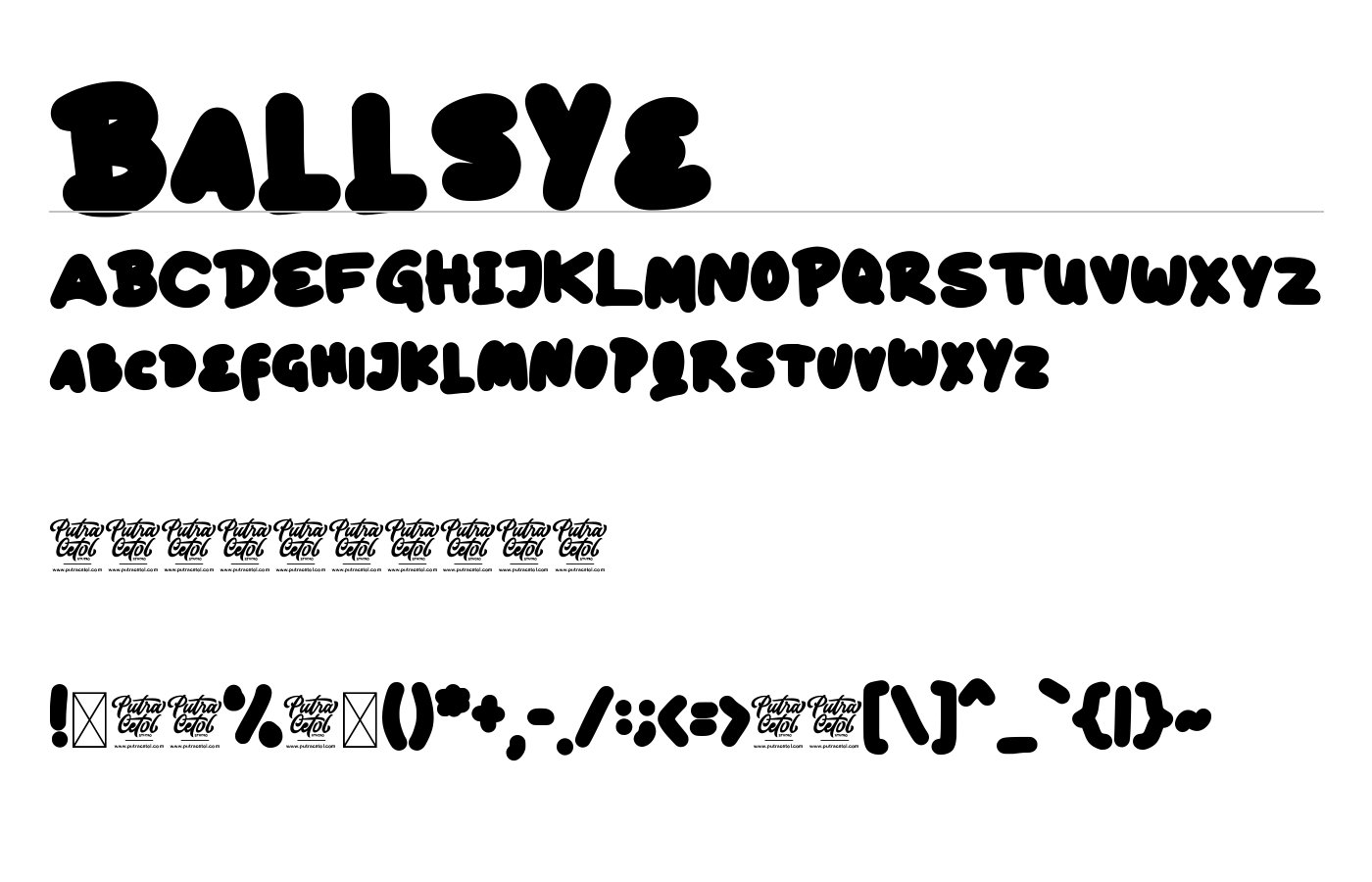
Ballsye is a playful, rounded sans serif font with a bold weight and a friendly, bubbly appearance. Its thick, uniform strokes and soft edges give it a casual and approachable personality, making it ideal for fun, informal designs like children’s books, party invitations, or quirky branding. The font’s whimsical style works best in eye-catching headlines and logos where a lively, energetic vibe is desired.
Ballsye Font
About Ballsye Font
| Font family | Ballsye Font |